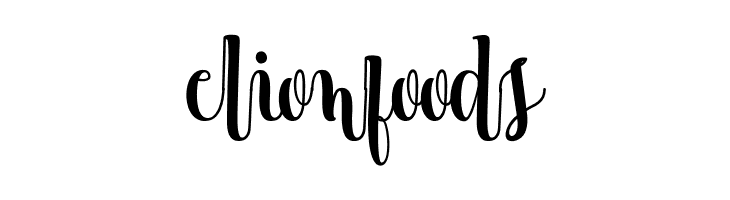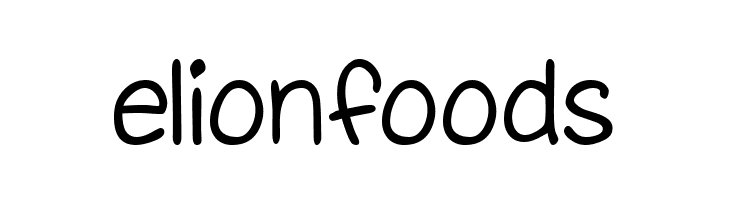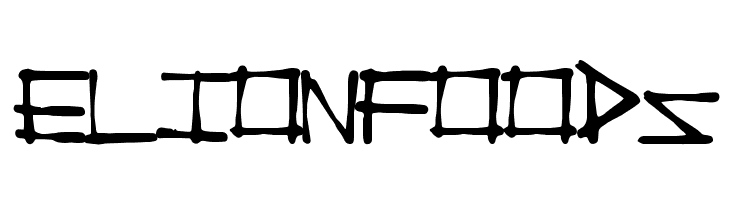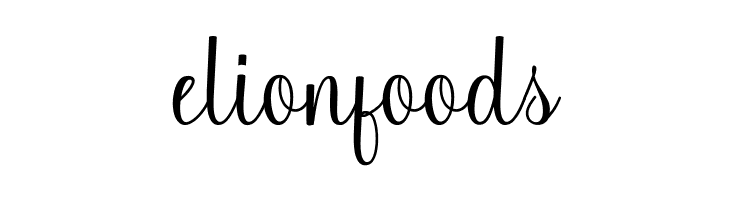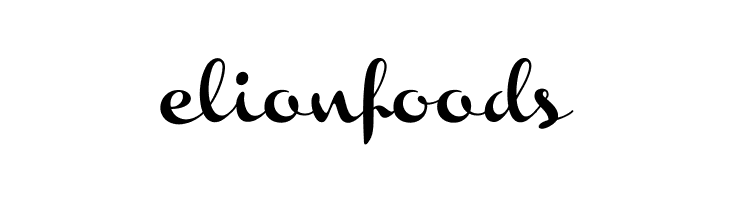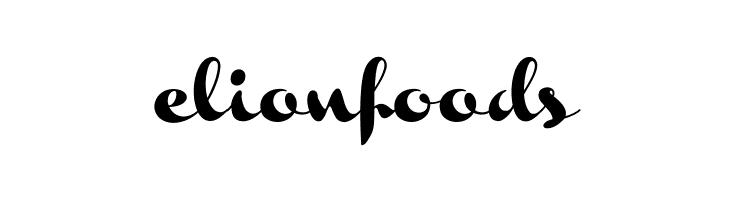
A playful, handwritten font with rounded, smooth letterforms.
A bold, expressive script font with dynamic curves and decorative swashes.
A bold, flowing script font with modern elegance.
A delicate, flowing script font with elegant, cursive letterforms.
A dynamic and flowing script font with elegant cursive letterforms.
A bold, hand-drawn font inspired by traditional East Asian calligraphy.
A charming script font with elegant, flowing curves and a handwritten feel.
A playful and elegant script font with interconnected loops and swirls.
A bold, dynamic font inspired by traditional Asian calligraphy with sharp, angular strokes.